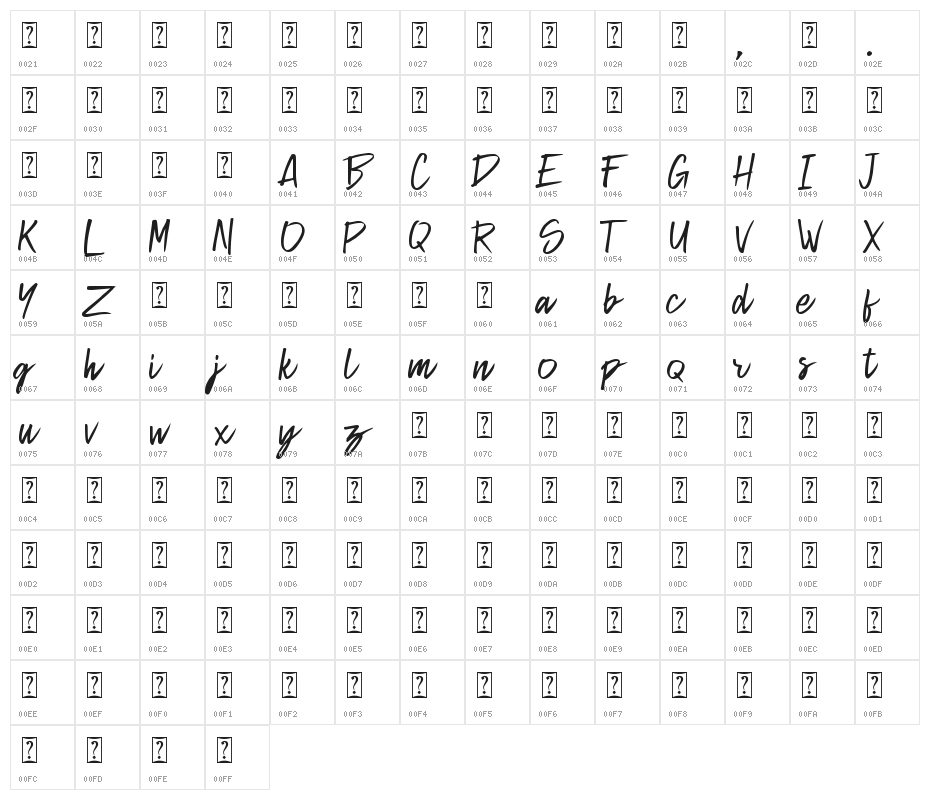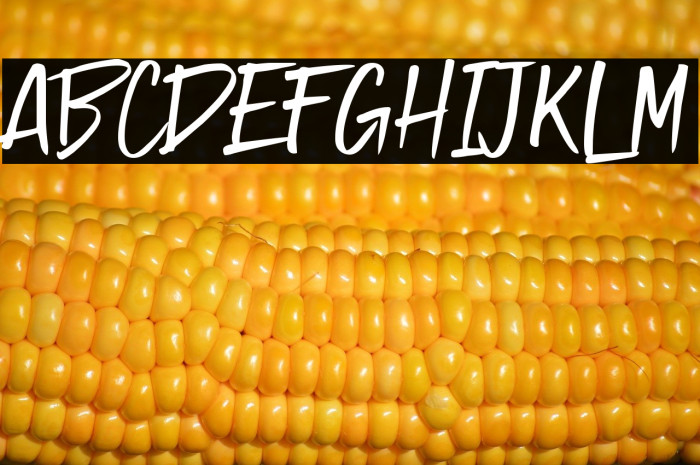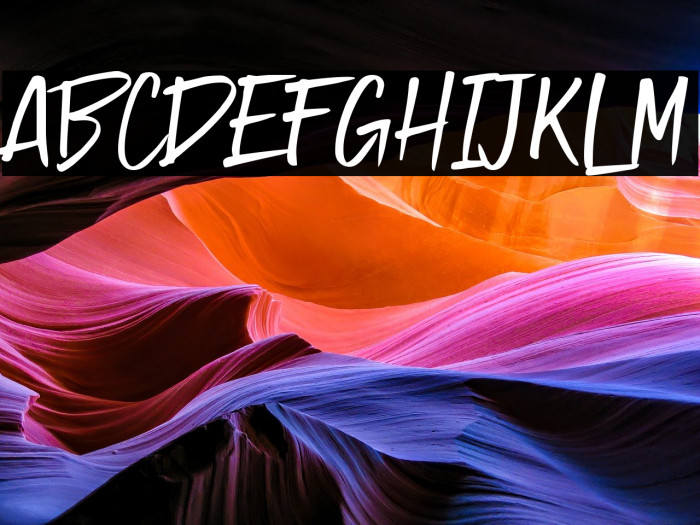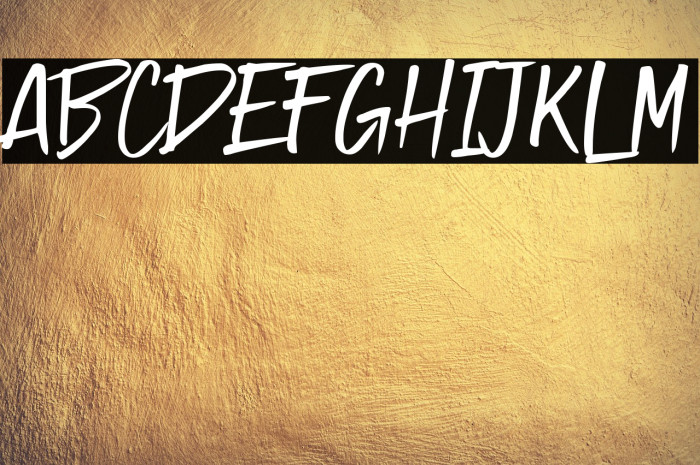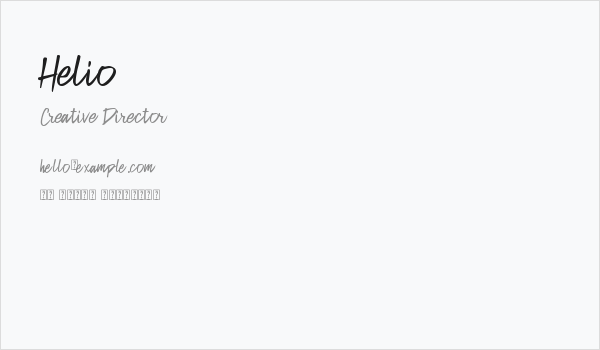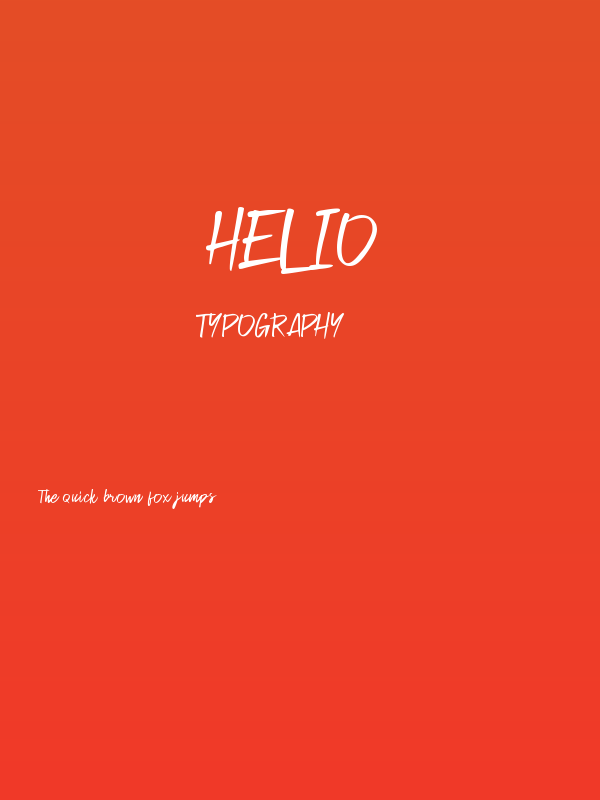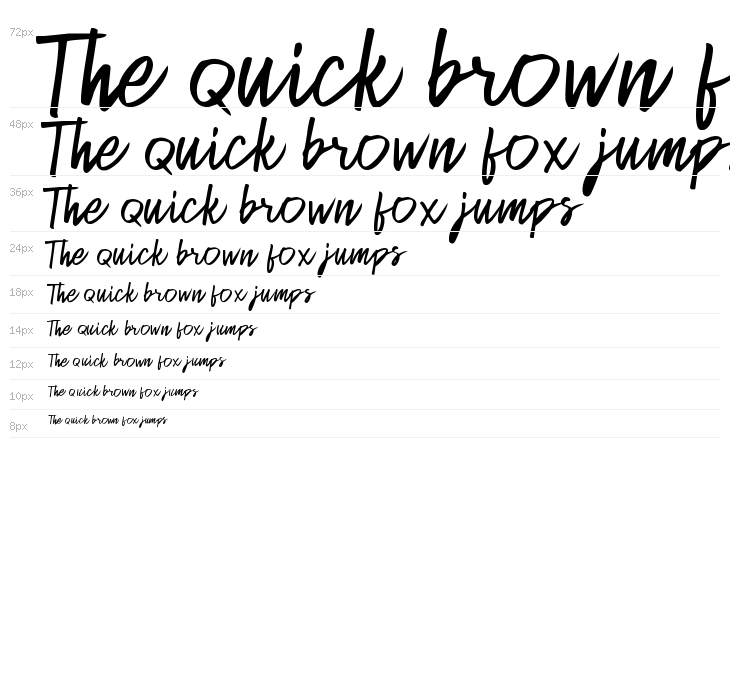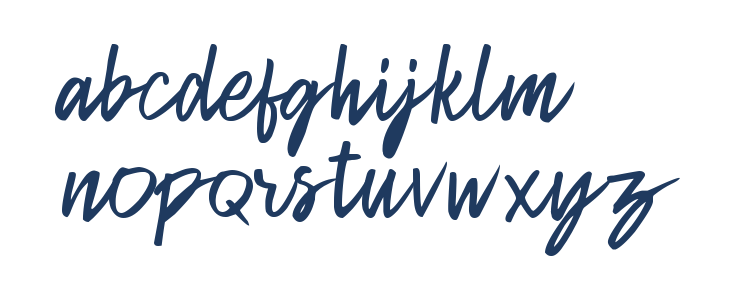
Helio Font
Helio Description
This font exhibits a dynamic and energetic script style, characterized by its fluid and slightly slanted letterforms. The uppercase letters are bold and expressive, while the lowercase letters maintain a consistent flow, enhancing readability. The strokes are smooth and exhibit a moderate contrast, adding to the font's lively appearance. The absence of serifs and the handwritten quality give it a personal and approachable feel. The font's design is versatile, making it suitable for various creative applications where a touch of personality is desired.
Use CaseLogos, Headlines, Invitations
Proposed ProjectsIdeal for branding, invitations, greeting cards, and social media graphics.